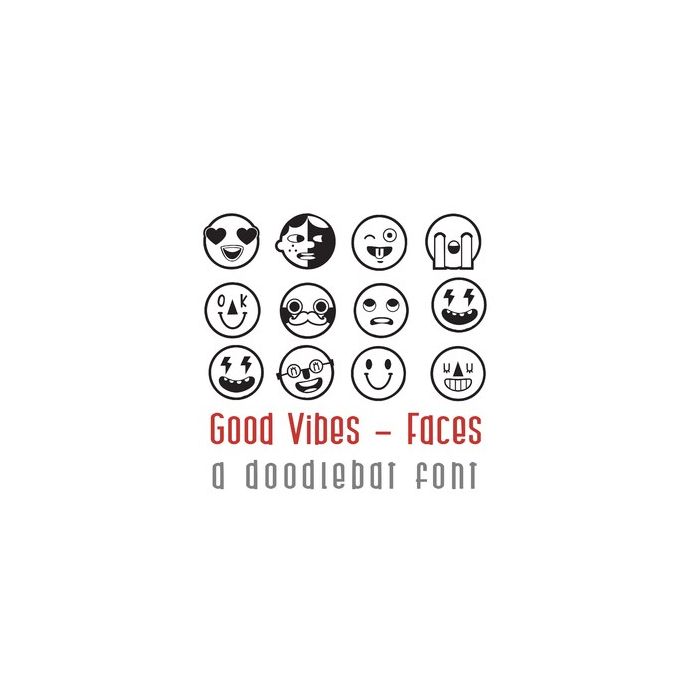
Good Vibes - Faces Doodlebat Font
This adorable doodlebat fonts features 26 sticker style emoticons perfect for cards, crafts, gifts, planner stickers, scrapbook pages, decor and more!